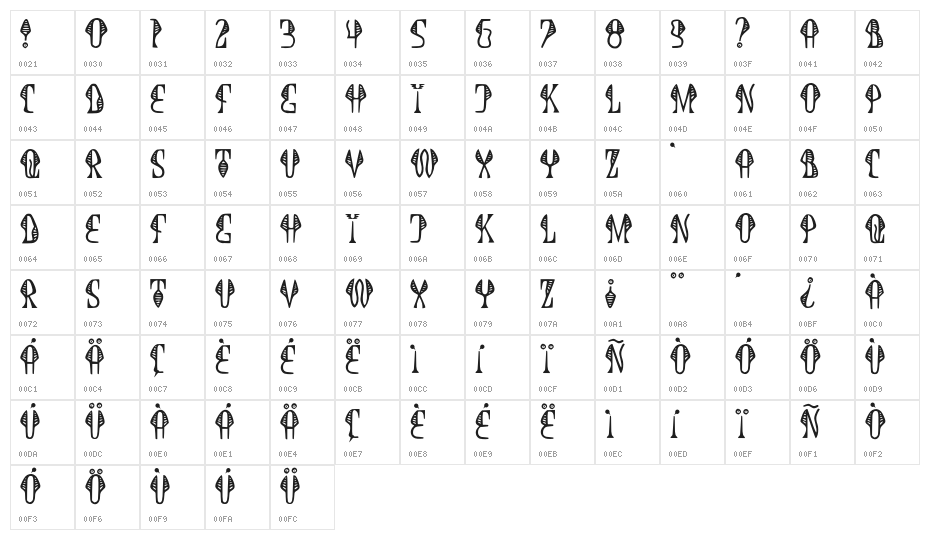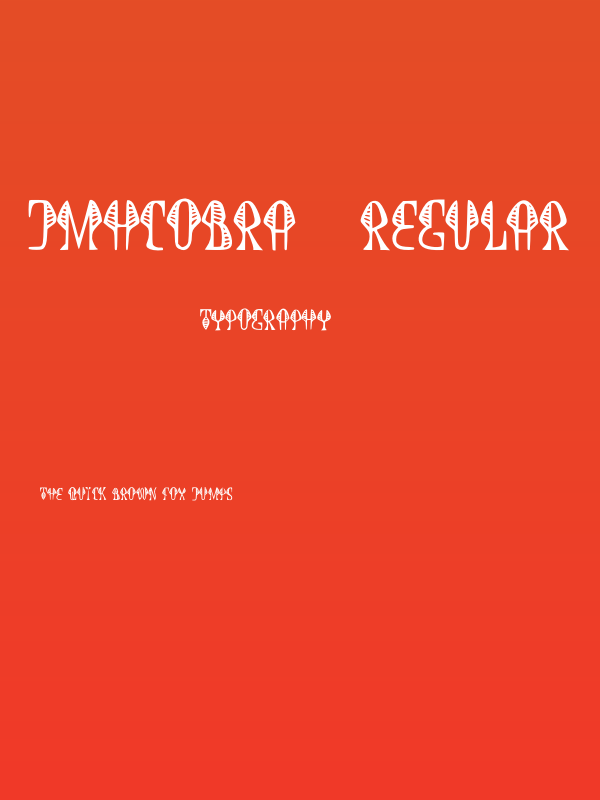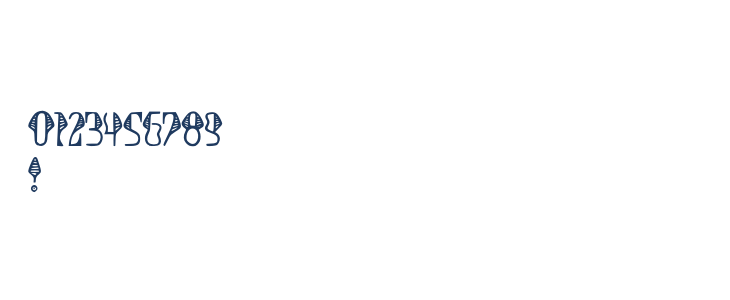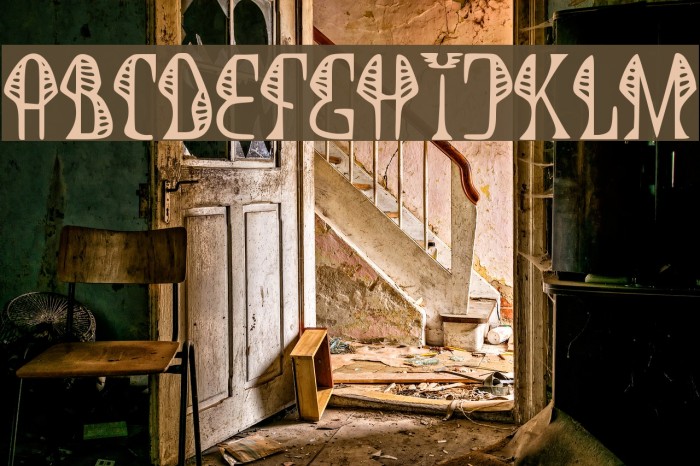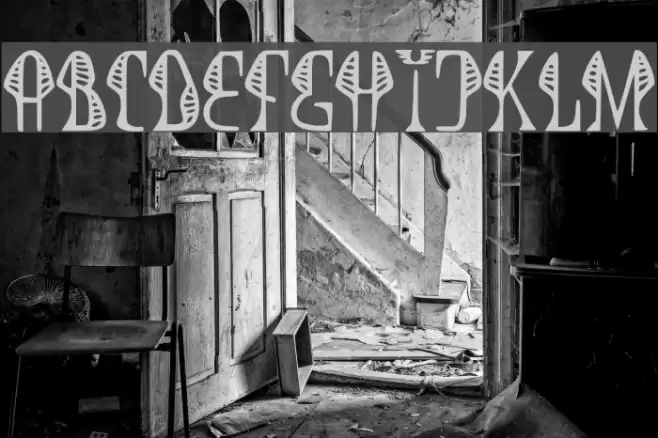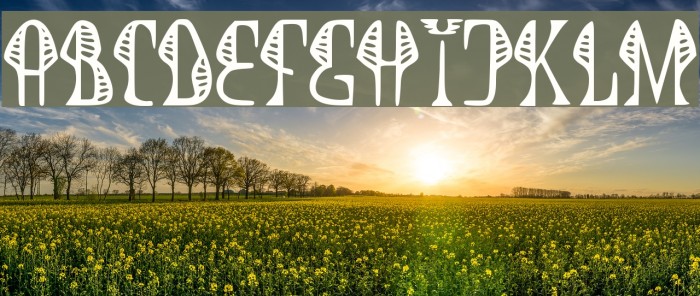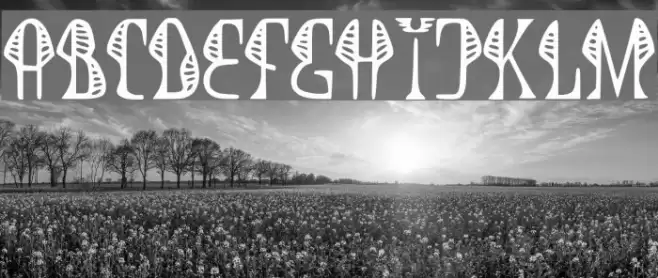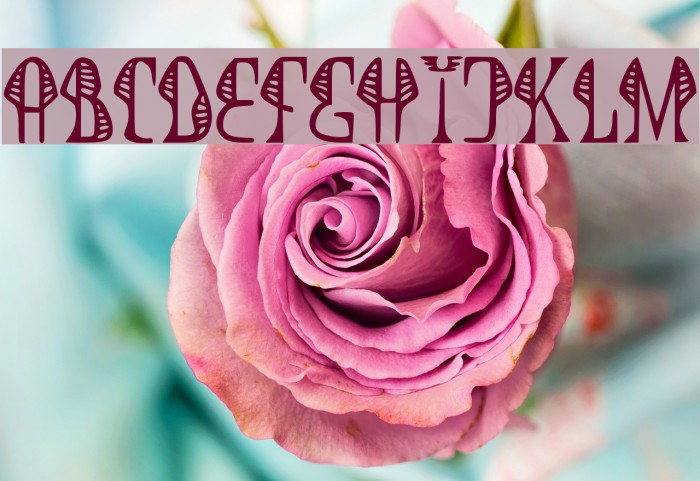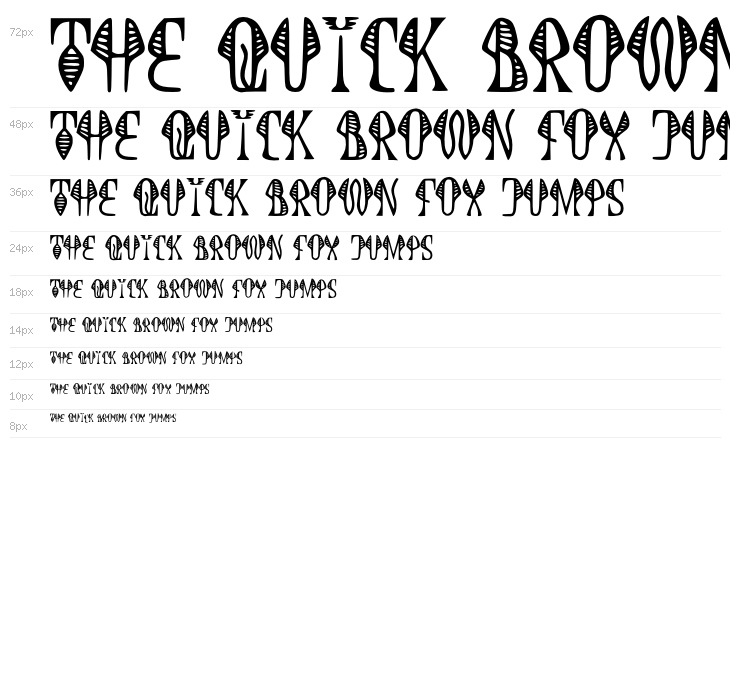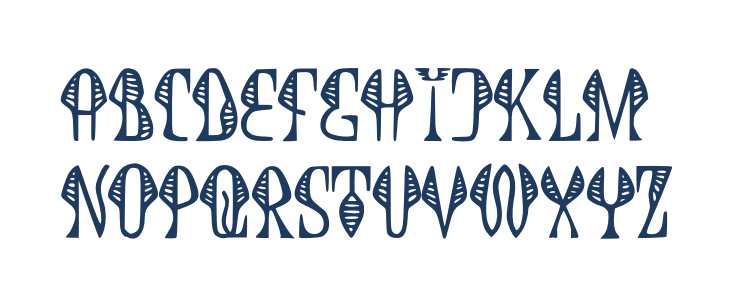
JMHCobra-Regular Font
JMHCobra-Regular Description
This font features a unique and decorative style, characterized by its bold and intricate design elements. Each letter is adorned with patterns reminiscent of snake scales, giving it an exotic and striking appearance. The font maintains a consistent weight throughout, with a medium contrast in stroke thickness that adds to its visual interest. The characters are evenly spaced, ensuring readability despite their elaborate design. This font is ideal for projects that require a bold statement or an artistic touch, such as posters, logos, or themed event invitations.
| Proposed Projects | Ideal for posters, logos, themed event invitations, and artistic projects. |